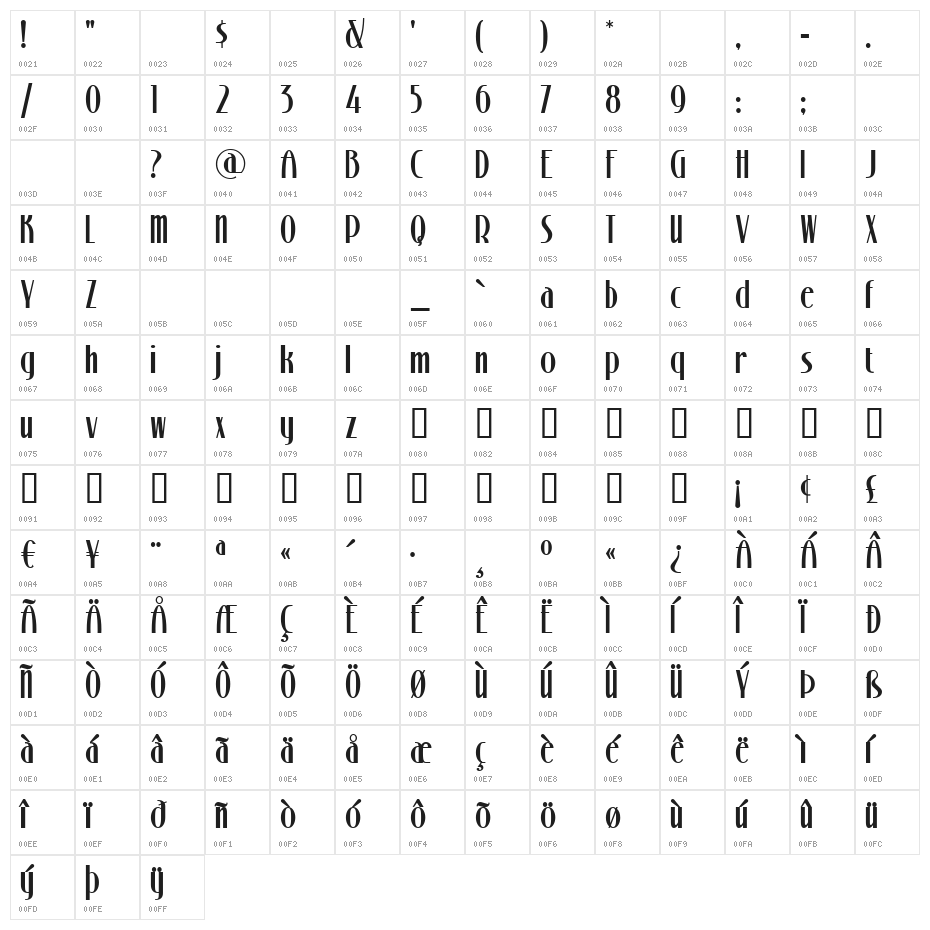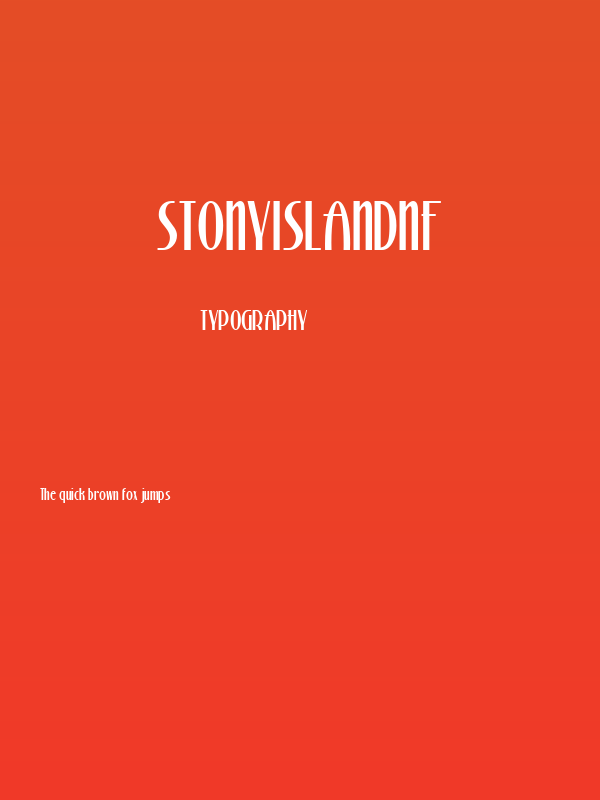
StonyIslandNF Font
StonyIslandNF Description
This font features a bold and striking design with tall, narrow characters that exude a sense of elegance and sophistication. The uppercase letters are particularly elongated, giving a dramatic flair, while the lowercase letters maintain a consistent style with slightly rounded edges. The numbers are distinct and maintain the same vertical emphasis, ensuring readability. Special characters are creatively designed, adding a unique touch to the overall aesthetic. This font is perfect for making a statement with its high contrast and modern appeal.
| Proposed Projects | Ideal for branding, poster design, headlines, and any project needing a modern, sophisticated touch. |